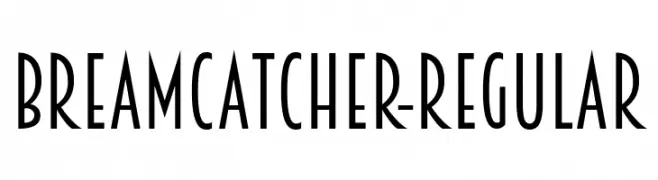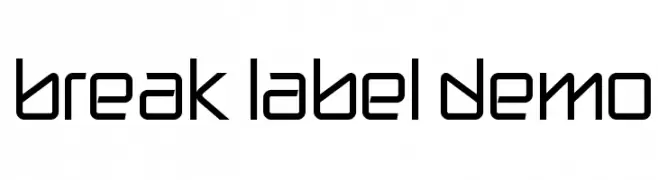
A bold, distressed font with a rugged, textured appearance.
A bold, geometric font with high contrast and a modern, avant-garde style.
A whimsical and artistic font with elongated, narrow characters and decorative loops.
A bold, geometric font with a futuristic and modern aesthetic.
A futuristic, geometric font with inline details and a bold, decorative style.
A geometric, futuristic font with clean lines and a grid-like structure.
A sleek, modern font with geometric precision and smooth curves.
A modern, geometric sans-serif font with a clean and minimalist design.
A bold, hand-drawn font with irregular, jagged edges and dynamic style.
A bold, italicized font with angular lines and a modern, futuristic style.
A bold, italic font with a distressed, grunge texture.
A bold, distressed font with a grunge, vintage aesthetic.
A bold, distressed italic font with a rugged, textured appearance.
A bold, distressed font with a vintage, textured appearance.
A playful, rounded font with smooth curves and a friendly appearance.
A playful, rounded font with smooth curves and a friendly style.
A bold, playful font with rounded edges and a whimsical style.
A bold, playful font with rounded edges and a whimsical touch.
A playful, handwritten-style italic font with smooth, rounded strokes.
A bold, cursive font with flowing, connected characters and decorative swashes.
A bold, brush-style font with dynamic, expressive characters.
A bold, graffiti-inspired font with sharp angles and a three-dimensional look.
A bold, graffiti-inspired font with sharp, angular edges.
A bold, angular font with a geometric style, ideal for striking headlines.
A modern, geometric font with clean lines and rounded edges.
A modern, geometric font with rounded edges and uniform stroke width.
A playful, rounded font with a handwritten style.
An elegant, flowing script font with smooth, cursive letterforms.
A bold, stencil-like font with a modern, industrial aesthetic.
A bold, modern font with rounded forms and high contrast, featuring unique cut-out shapes.